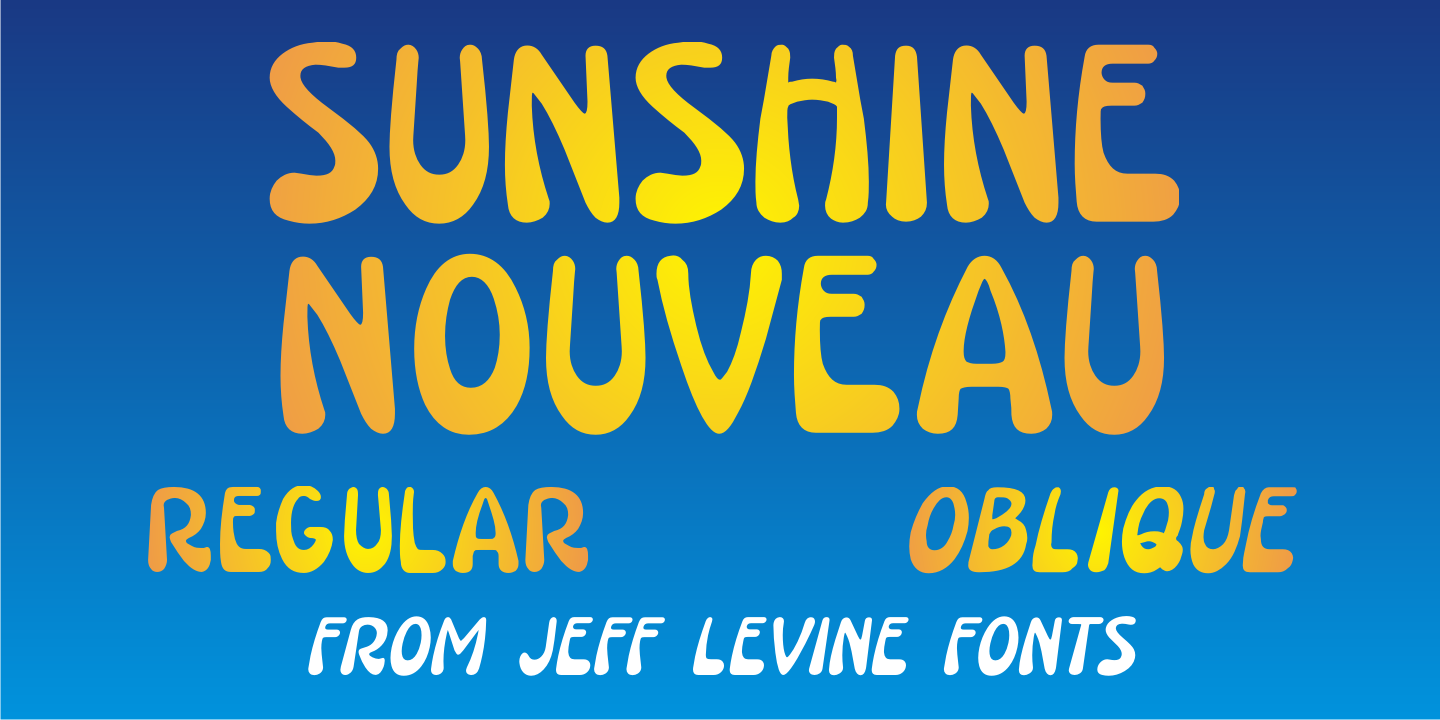
Sunshine Nouveau Font is perfect for art nouveau revival branding, vintage summer festival posters, elegant botanical designs, luxury organic product packaging, artisan craft labels, sophisticated wellness branding, decorative art galleries, and radiant designs that require Art Nouveau elegance with sunny optimism.
This font is exciting because it combines the timeless sophistication of Art Nouveau design with the uplifting energy of golden sunshine through its flowing letterforms that dance with organic curves and radiant warmth. The artistic character design captures the harmony between natural beauty and decorative artistry, making it perfect for brands seeking to convey both elegance and joyful positivity.
Sunshine Nouveau Font belongs to the decorative Art Nouveau font family, featuring organic styling and sunshine elements that enhance its authenticity for artistic and wellness-focused design applications.
Whether you're creating artistic luxury branding or elegant botanical graphics, Sunshine Nouveau Font Free Download delivers exceptional artistic sophistication and radiant charm. This typeface represents the perfect fusion of historical Art Nouveau heritage with contemporary sunny optimism, making it essential for designers working on projects that celebrate natural beauty and artistic refinement. The font's luminous presence works magnificently in luxury packaging, artistic communications, and wellness materials, providing optimal readability while maintaining its nouveau character that transforms any design with artistic sunshine across all media platforms and creative communications.